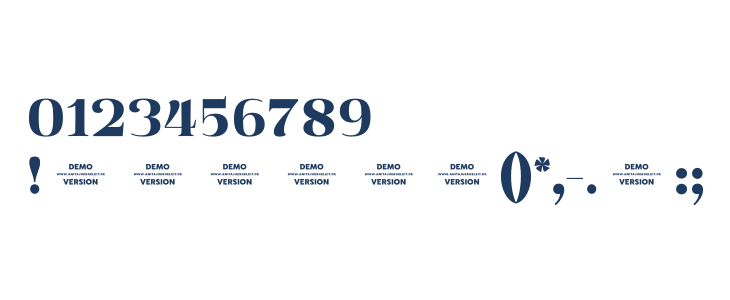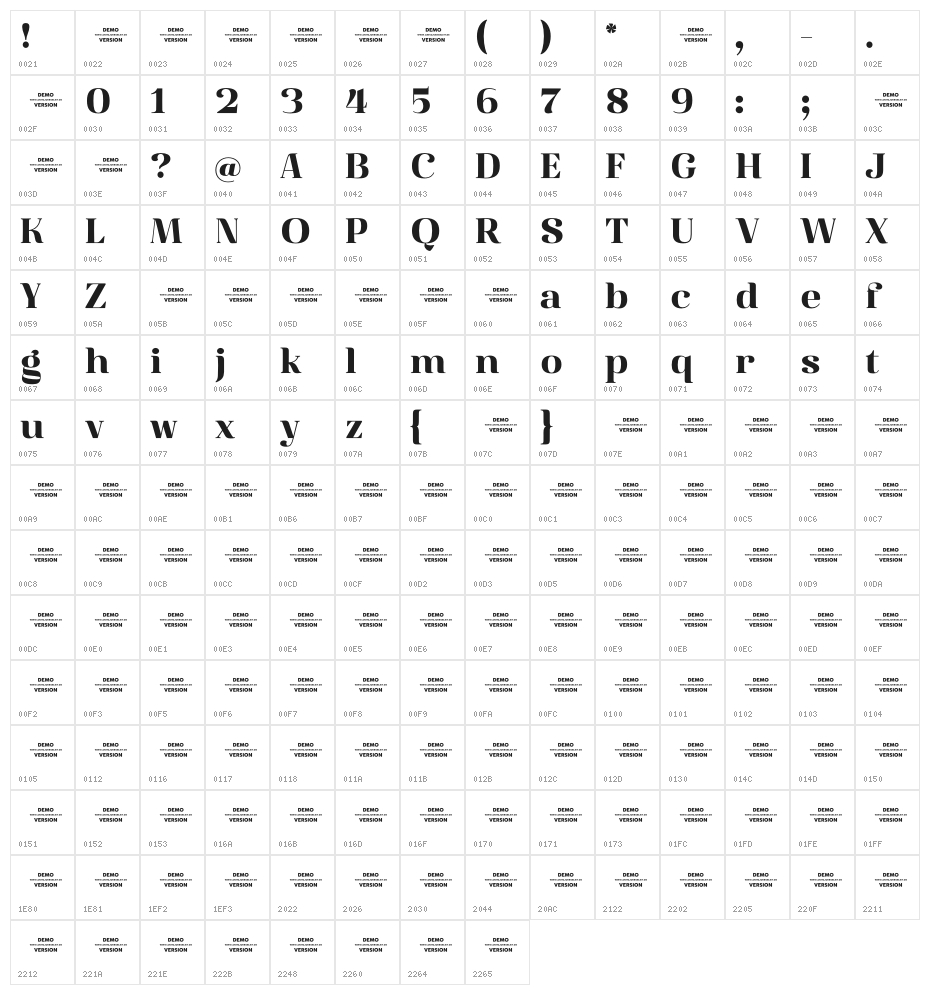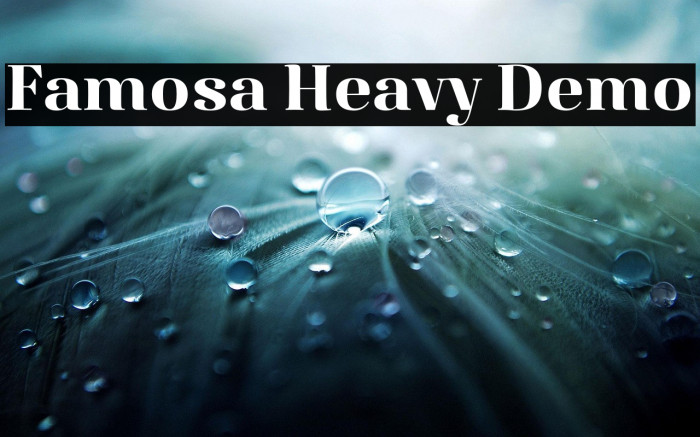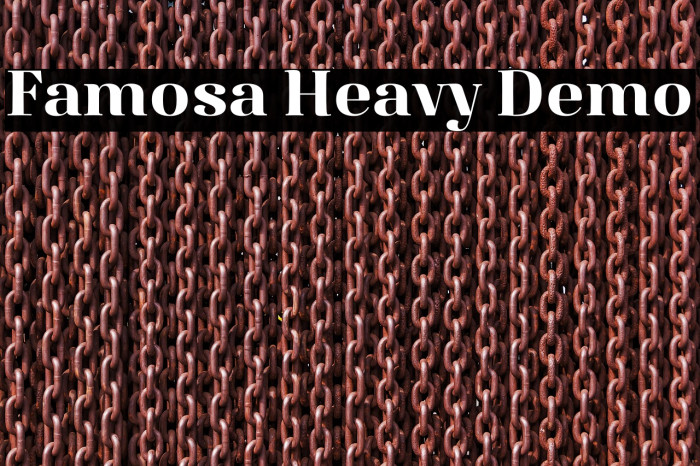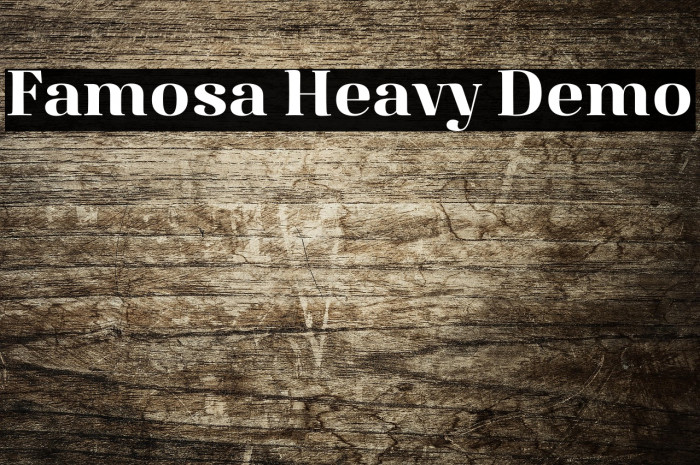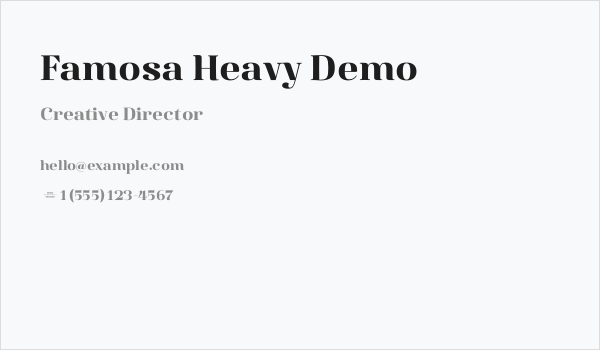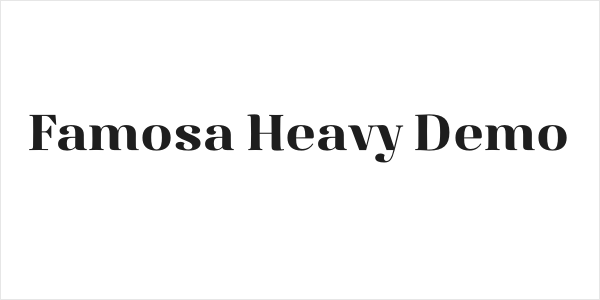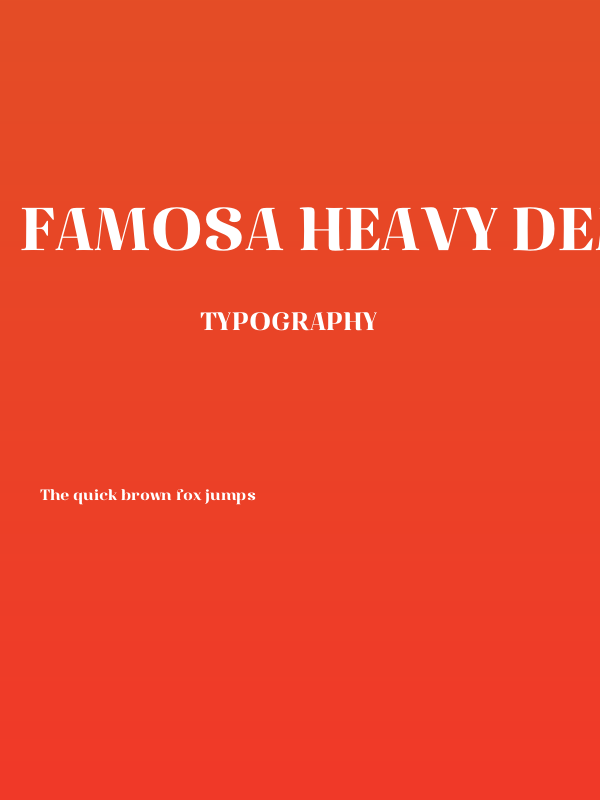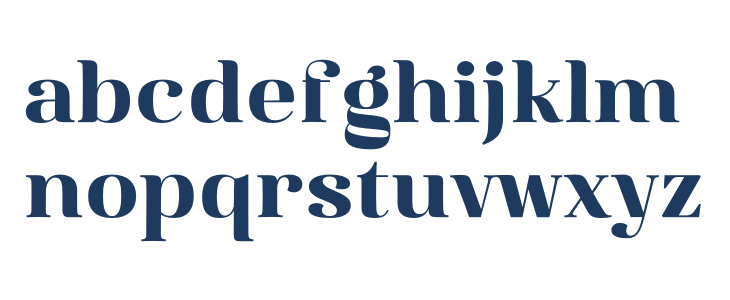
Famosa Heavy Demo Font
Famosa Heavy Demo Description
This font exhibits a bold and striking presence with its heavy weight and high contrast between thick and thin strokes. The serif design is prominent, giving it a classic yet modern appeal. The uppercase letters are particularly commanding, with sharp serifs and a robust structure. The lowercase letters maintain a consistent style, offering a harmonious blend with the uppercase. The numerals are equally bold, ensuring readability and impact. Special characters are designed with the same attention to detail, making them stand out. Overall, the font's design is both elegant and assertive, suitable for making a strong visual statement.
| Proposed Projects | Ideal for branding, headlines, posters, and editorial design where a strong, impactful serif font is needed. |